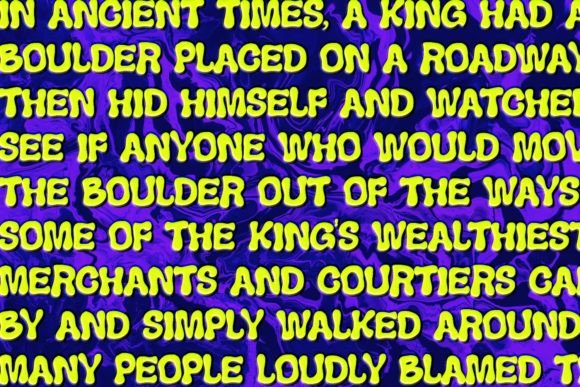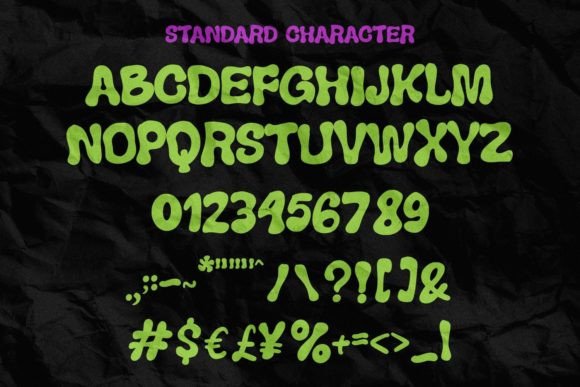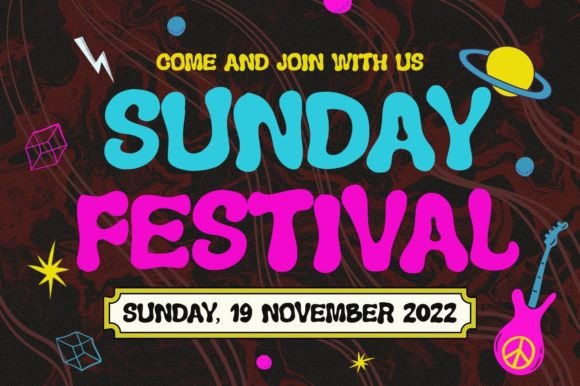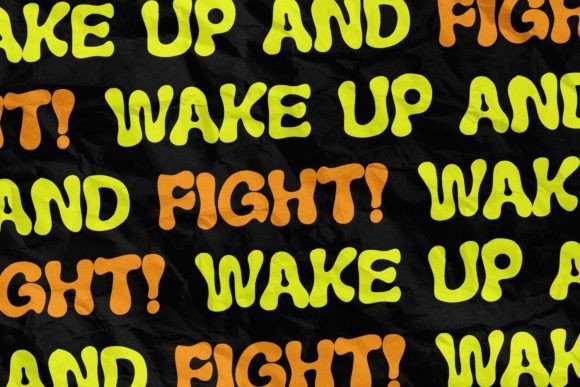
Introducing Groovy Electro Font: The Ultimate Retro Display Font
Are you tired of using the same old fonts in your creative projects? Do you want to add a touch of retro fun and personality to your designs? Look no further than Groovy Electro Font, a unique and chunky lettered display font that’s sure to make your ideas come alive!
What is Groovy Electro Font?
Groovy Electro Font is a one-of-a-kind display font that’s inspired by the fun and playful vibe of the 1960s and 1970s. With its chunky, bold letters and retro aesthetic, this font is perfect for adding a touch of nostalgia and whimsy to your designs. Whether you’re working on a logo, poster, or social media graphic, Groovy Electro Font is sure to make your project stand out.
Key Features of Groovy Electro Font
- Unique and Chunky Lettering: Groovy Electro Font features bold, chunky letters that are sure to grab attention.
- Retro Aesthetic: This font is inspired by the fun and playful vibe of the 1960s and 1970s, making it perfect for adding a touch of nostalgia to your designs.
- Easy to Read: Despite its bold and chunky design, Groovy Electro Font is easy to read, even at smaller sizes.
- Versatile: This font can be used for a wide range of projects, from logos and posters to social media graphics and more.
How to Use Groovy Electro Font in Your Designs
Groovy Electro Font is perfect for designers and crafters who want to add a touch of retro fun to their projects. Here are a few ideas to get you started:
- Logos and Branding: Use Groovy Electro Font to create a bold and eye-catching logo that’s sure to stand out.
- Posters and Flyers: Add a touch of retro fun to your posters and flyers with Groovy Electro Font.
- Social Media Graphics: Use this font to create eye-catching social media graphics that are sure to grab attention.
- Crafting Projects: Groovy Electro Font is also perfect for crafters who want to add a touch of personality to their projects, such as handmade cards and scrapbooking pages.
Tips for Getting the Most Out of Groovy Electro Font
Here are a few tips for getting the most out of Groovy Electro Font:
- Experiment with Colors: Groovy Electro Font looks great in bold, bright colors. Experiment with different color combinations to find the perfect look for your project.
- Play with Texture: Add some texture to your design by layering Groovy Electro Font over a background image or texture.
- Mix and Match Fonts: Don’t be afraid to mix and match Groovy Electro Font with other fonts to create a unique and interesting look.
Groovy Electro Font is a unique and chunky lettered display font that’s perfect for adding a touch of retro fun to your designs. With its bold, eye-catching letters and versatile design, this font is sure to make your projects stand out. Whether you’re a designer or crafter, Groovy Electro Font is a must-have font that’s sure to inspire your creativity.